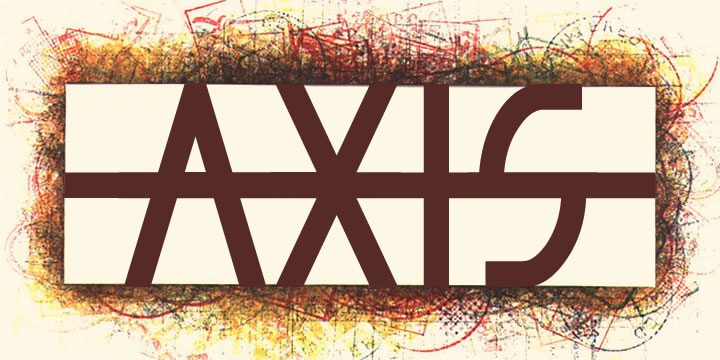
Axis is a distinctive small caps font family. Both upper and lower case are symmetrical around the mid horizontal axis which forms a partial strikethrough.